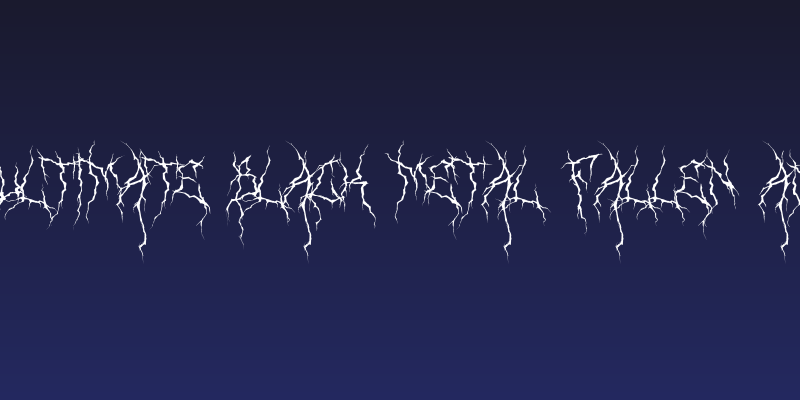
XXII Ultimate-Black-Metal Fallen-Angel Font
XXII Ultimate-Black-Metal Fallen-Angel Description
This font exudes a dark, chaotic energy with its jagged, thorn-like strokes and irregular forms. Each character appears as if it is cracked or shattered, giving a sense of decay and destruction. The uppercase and lowercase letters maintain a consistent style, with sharp edges and pointed terminals that evoke a sense of danger and mystery. The numbers and special characters follow the same aesthetic, enhancing the overall theme of darkness and rebellion. This font is perfect for projects that require a bold, gothic, or metal-inspired look.
| Overall Style | Decorative, Gothic, Chaotic |
| Use Case | Logos, Posters, Album Covers |
| Proposed Projects | Ideal for album covers, band logos, horror movie posters, and gothic-themed designs. |